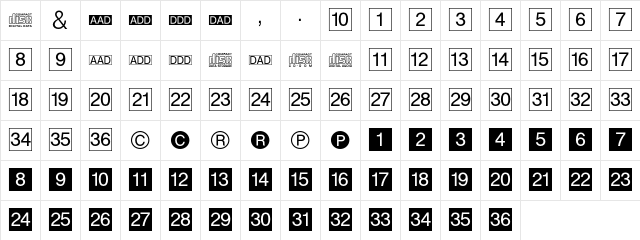
DesignCD Regular
Design Context for DesignCD Typeface
DesignCD is a composed and adaptable typeface that performs quietly and consistently across a wide range of design contexts.